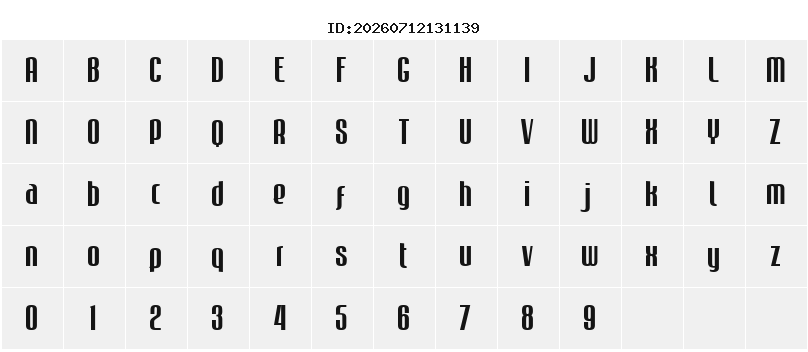
• Font Name: Mabella
• Full Font Name: Mabella
• Copyright: Designed by Ramiro Espinoza. Buenos Aires - Argentina/ 2001. The name of this font -Mabella- is dedicated to Mabel Bellucci.
About Mabella.ttf
Mabella.ttf is a modern, elegant sans-serif font designed for ultimate readability and visual harmony. Perfect for branding, headlines, web design, and print materials.